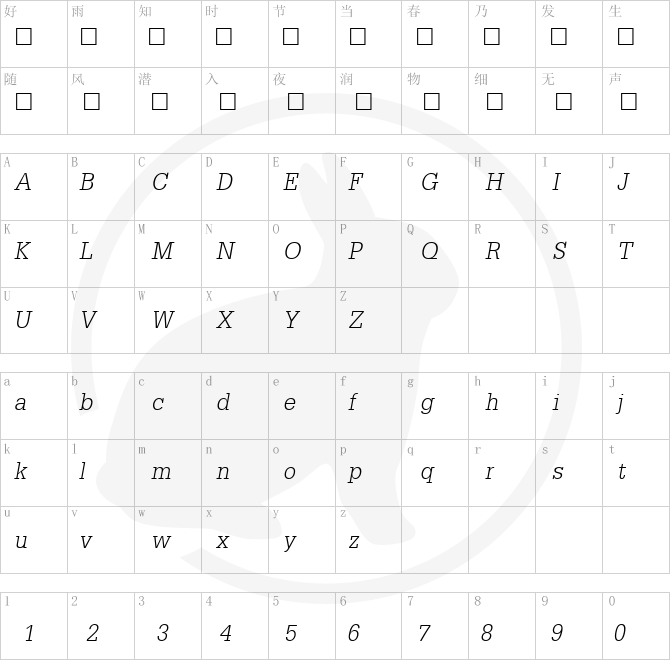
P5-DilleniaUPC-Italic.ttf is a very beautiful artistic font, P5-DilleniaUPC-Italic.ttf is widely used in the design and printing of various books and pictures,P5-DilleniaUPC-Italic.ttf has a strong visual impact,P5-DilleniaUPC-Italic.ttf is a commonly used font in newspapers, magazines and books, and is used in posters, e-commerce Poster design, store design, logo design, font design and other fields.P5-DilleniaUPC-Italic.